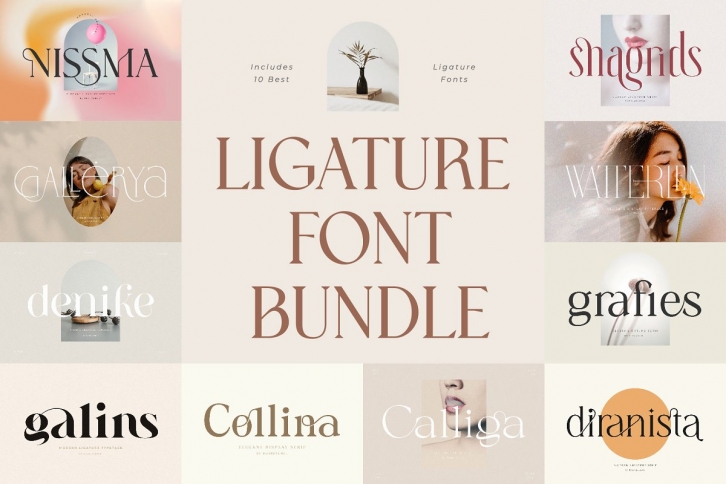
WOW!!! an incredible LIGATURE FONT BUNDLE
Ligature font bundle is suitable font for many creative products & designs. Go ahead and make Branding, Logos, Blog, Social Media, Invites, Wedding, Poster, Magazine, Quotes, Packaging, Photo Overlays, Poatcard, Advertisements, Fashion and others.
Fonts Included: